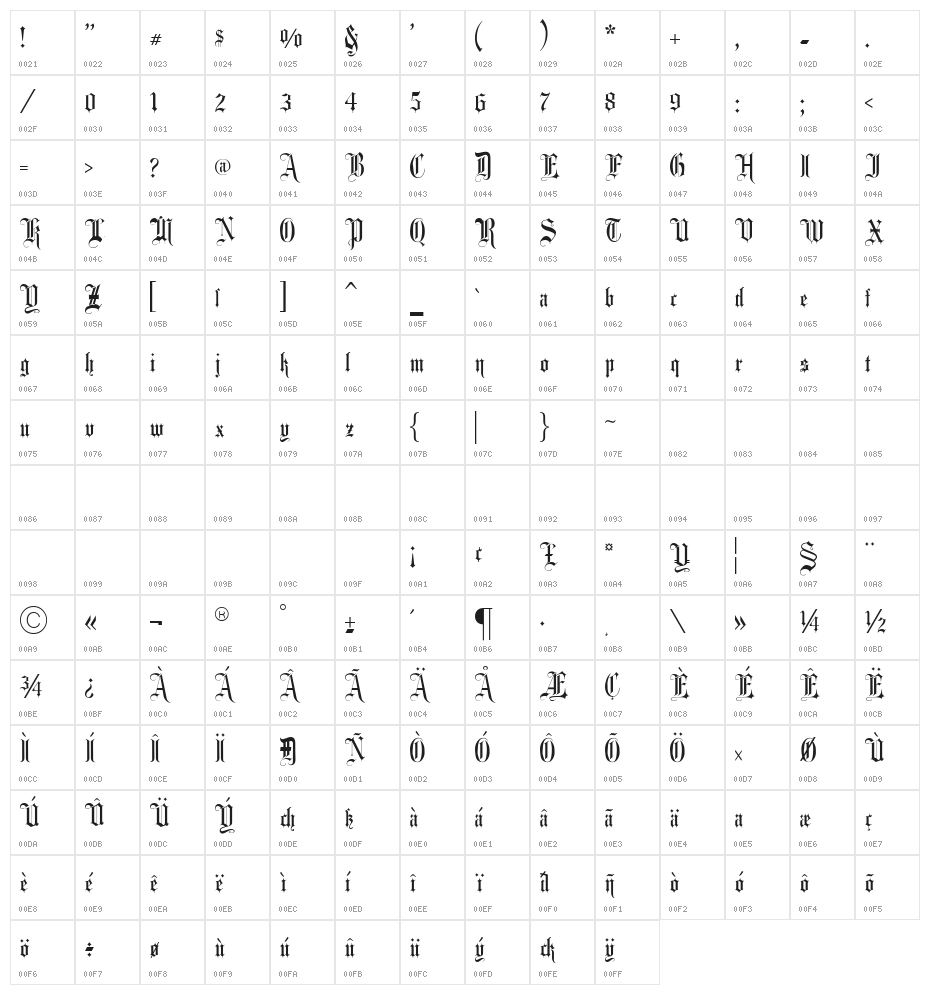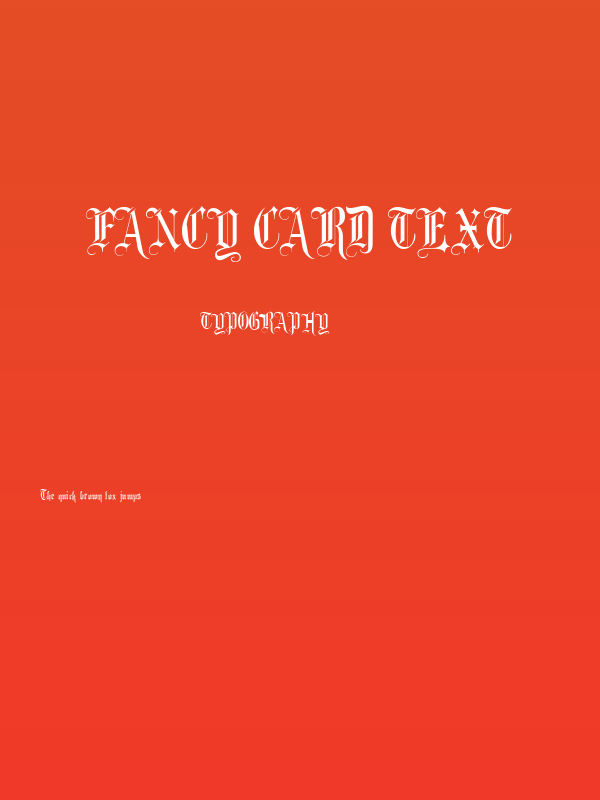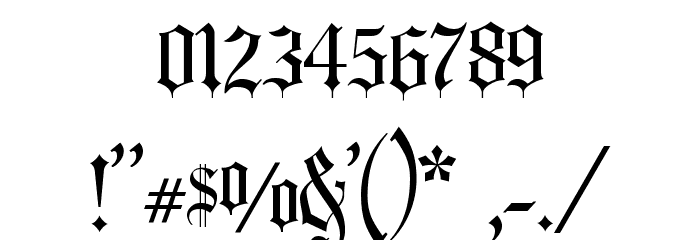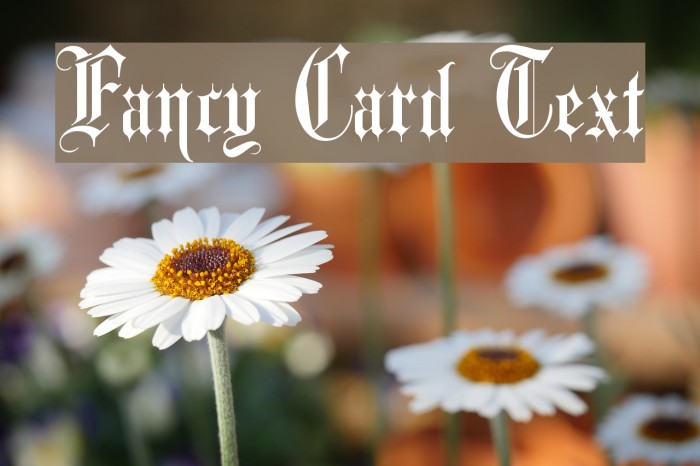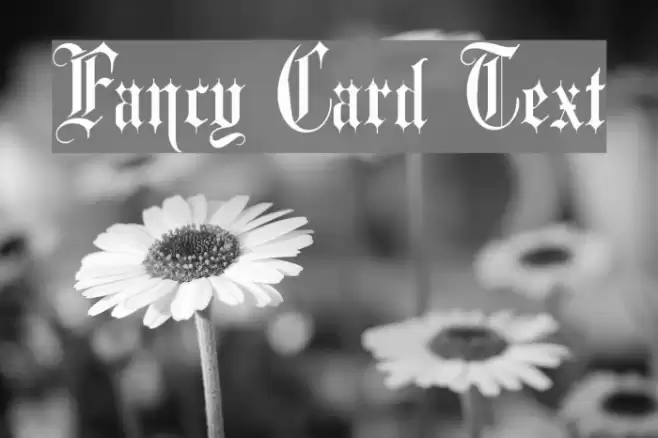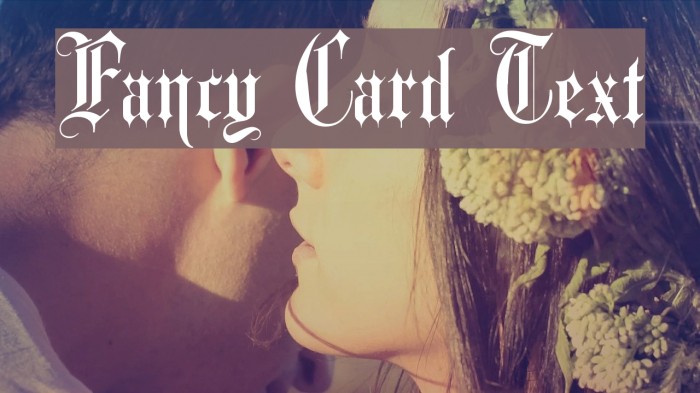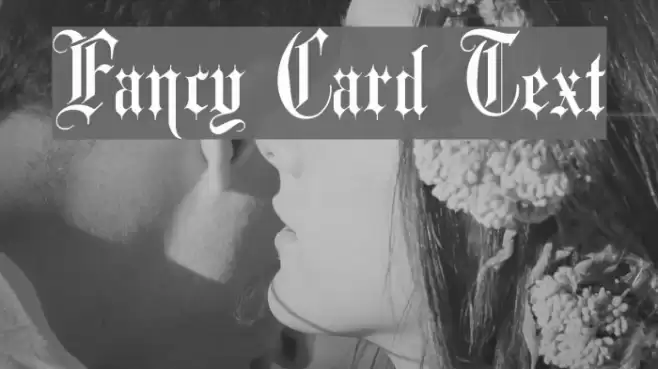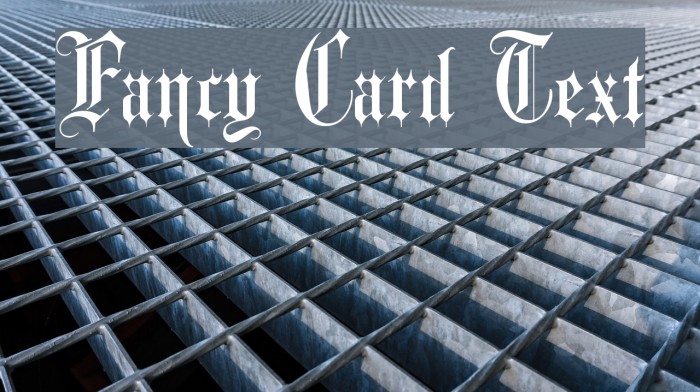
Fancy Card Text Font
Fancy Card Text Description
This font exudes a classic and ornate style, reminiscent of traditional calligraphy with a modern twist. The uppercase letters are characterized by their intricate flourishes and sharp serifs, giving them a regal and authoritative appearance. The lowercase letters maintain the same level of detail, with elegant curves and a consistent stroke width that enhances readability. The numerals are bold and distinct, matching the elaborate style of the alphabet. Special characters are equally ornate, making them suitable for decorative purposes. Overall, this font combines historical elegance with contemporary design, making it ideal for projects that require a touch of sophistication and grandeur.
| Overall Style | Classic |
| Use Case | Headlines, Logos, Decorative text |
| Proposed Projects | Ideal for wedding invitations, certificates, branding for luxury products, and historical-themed designs. |